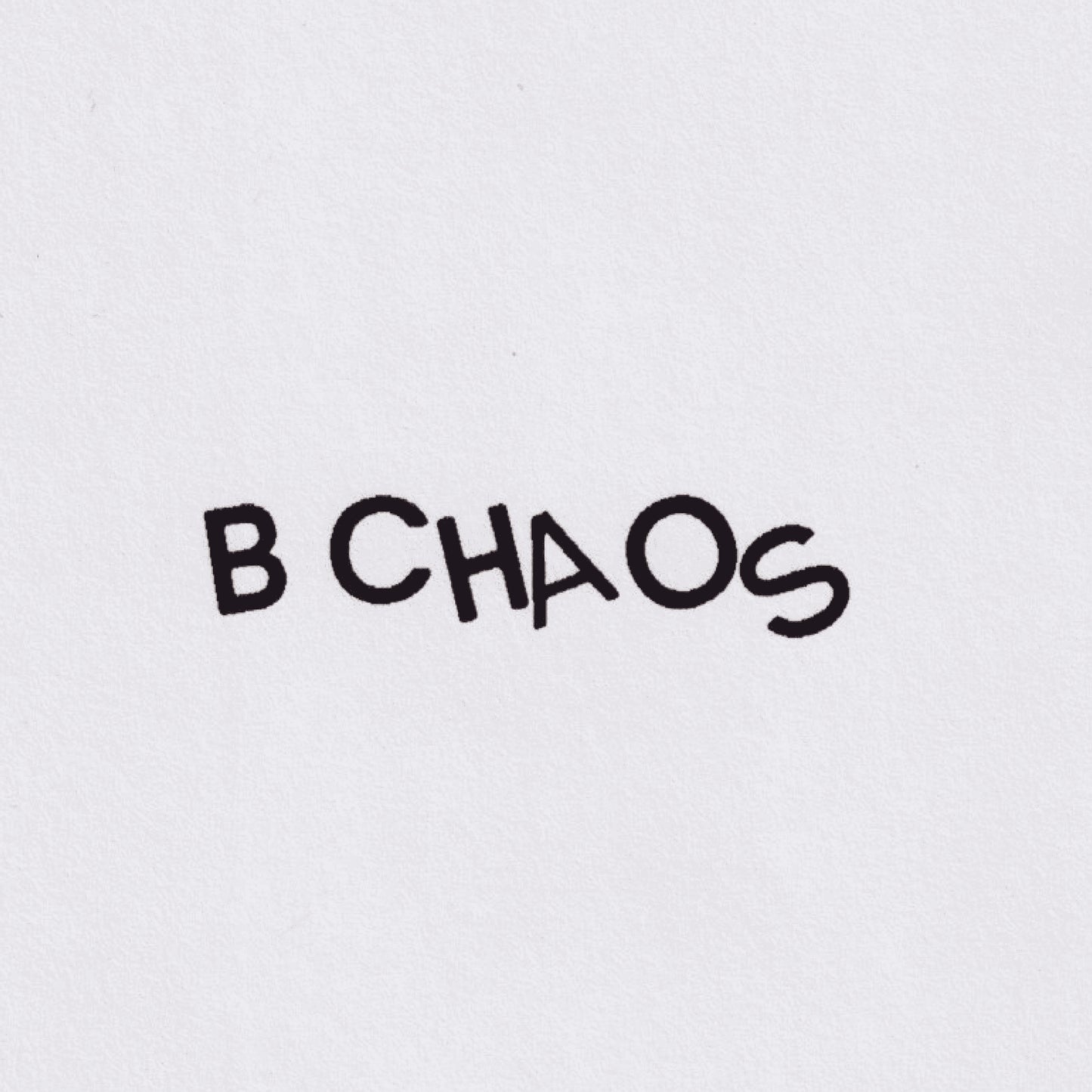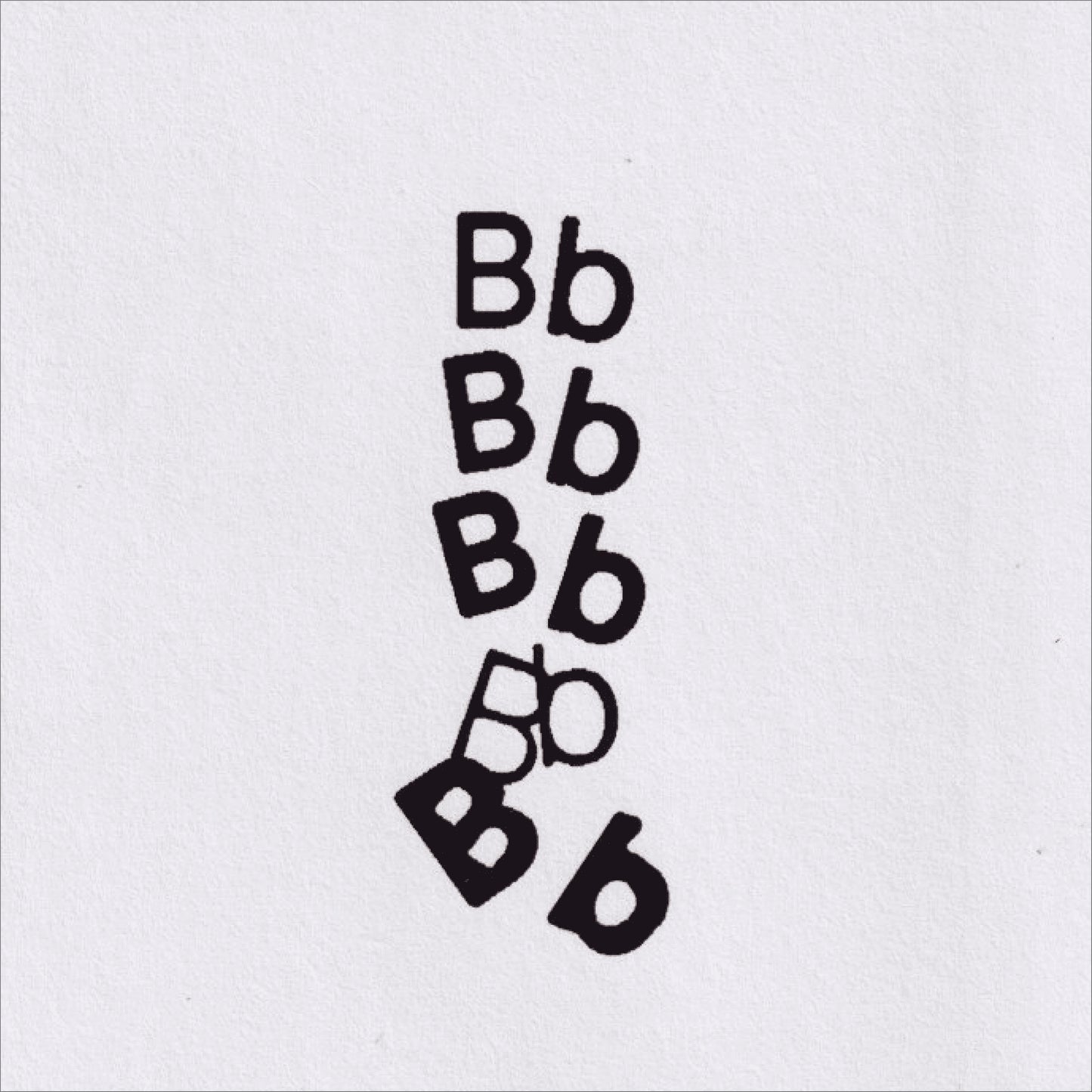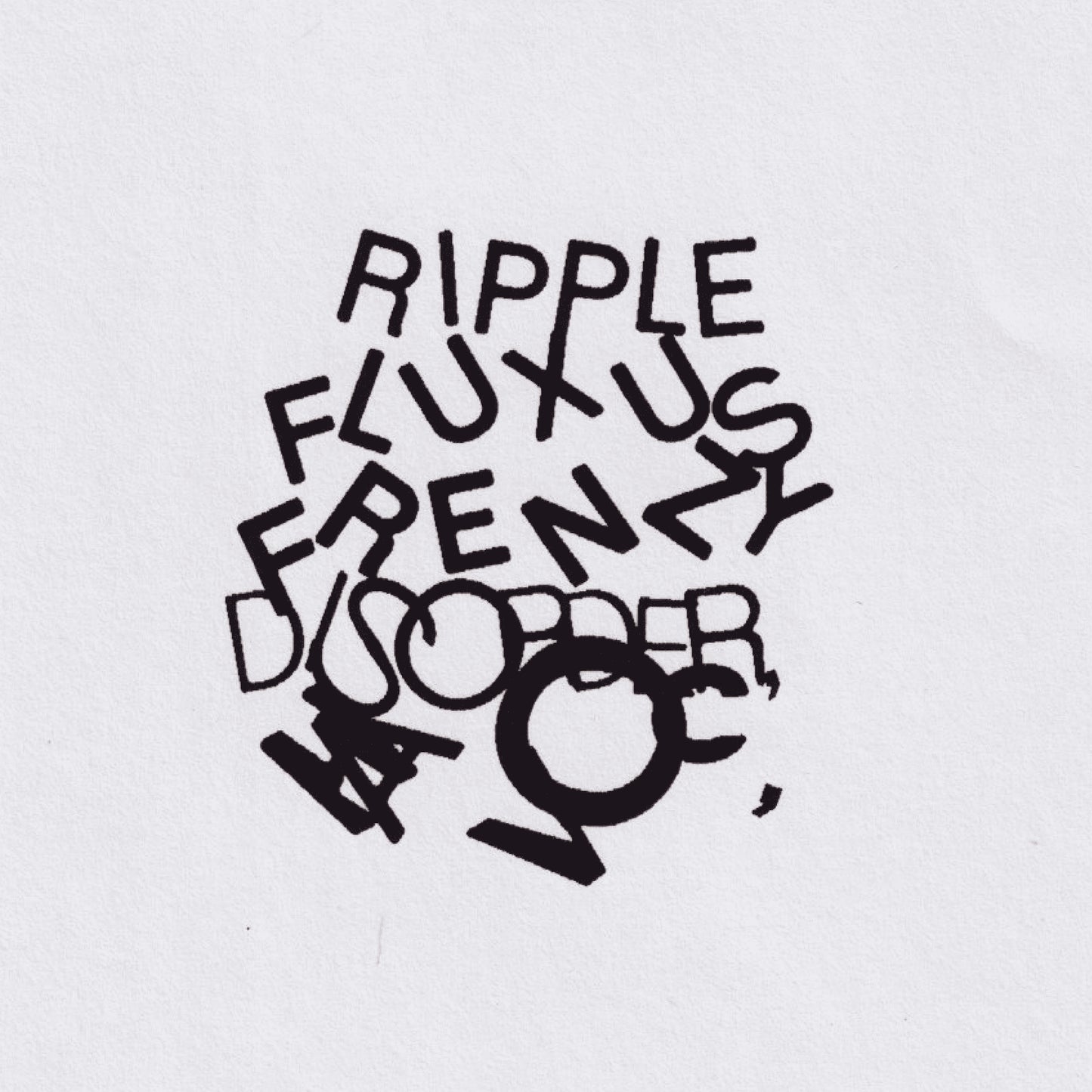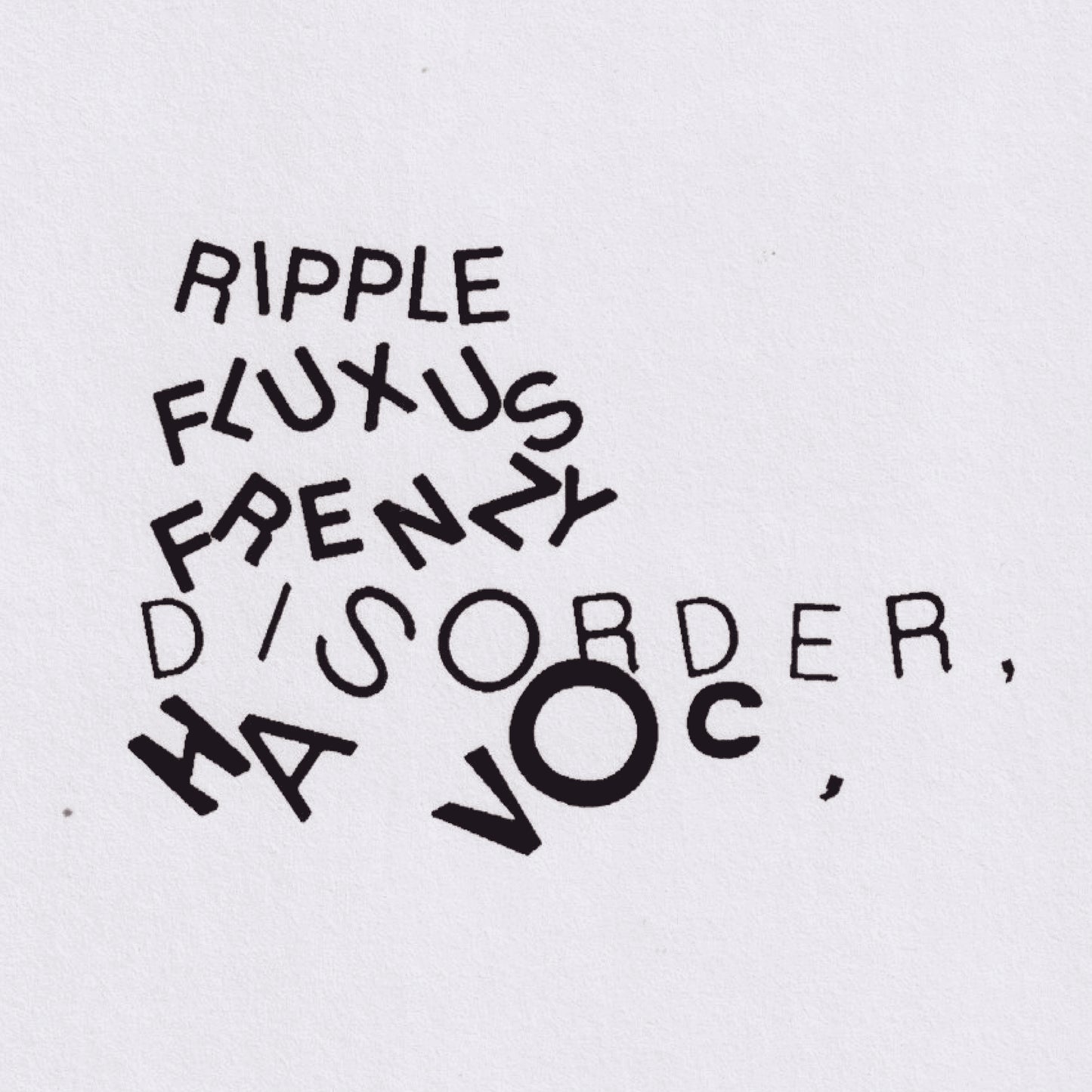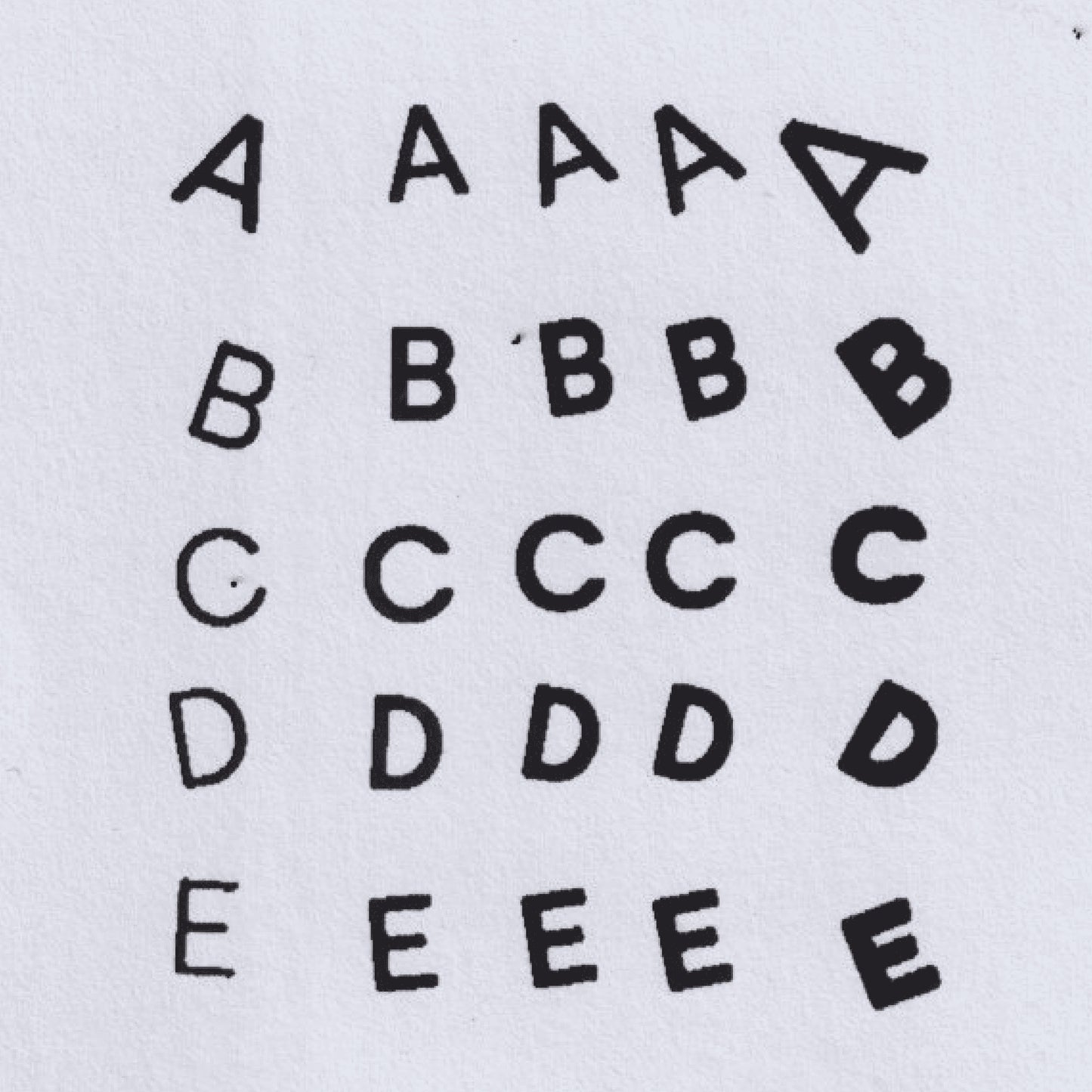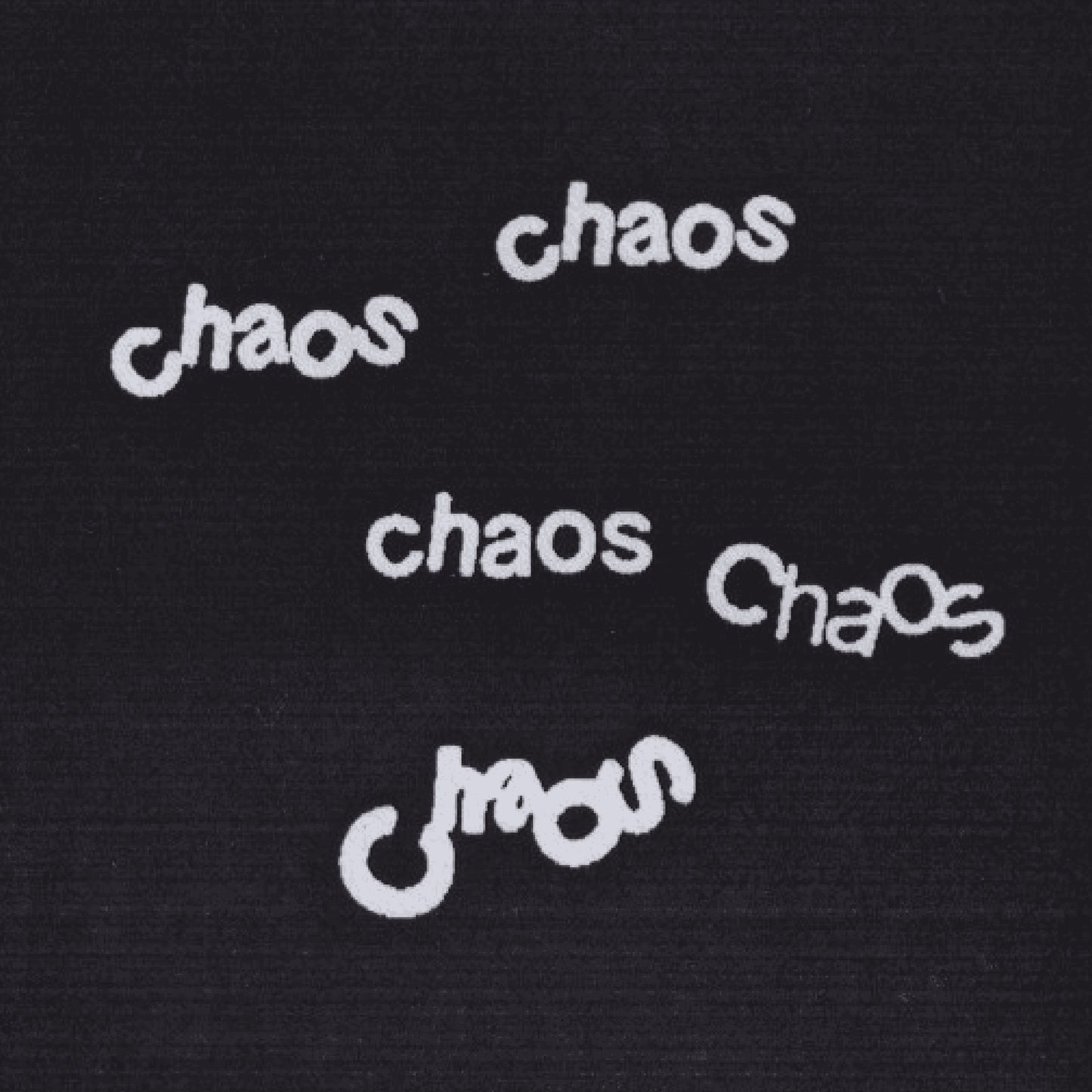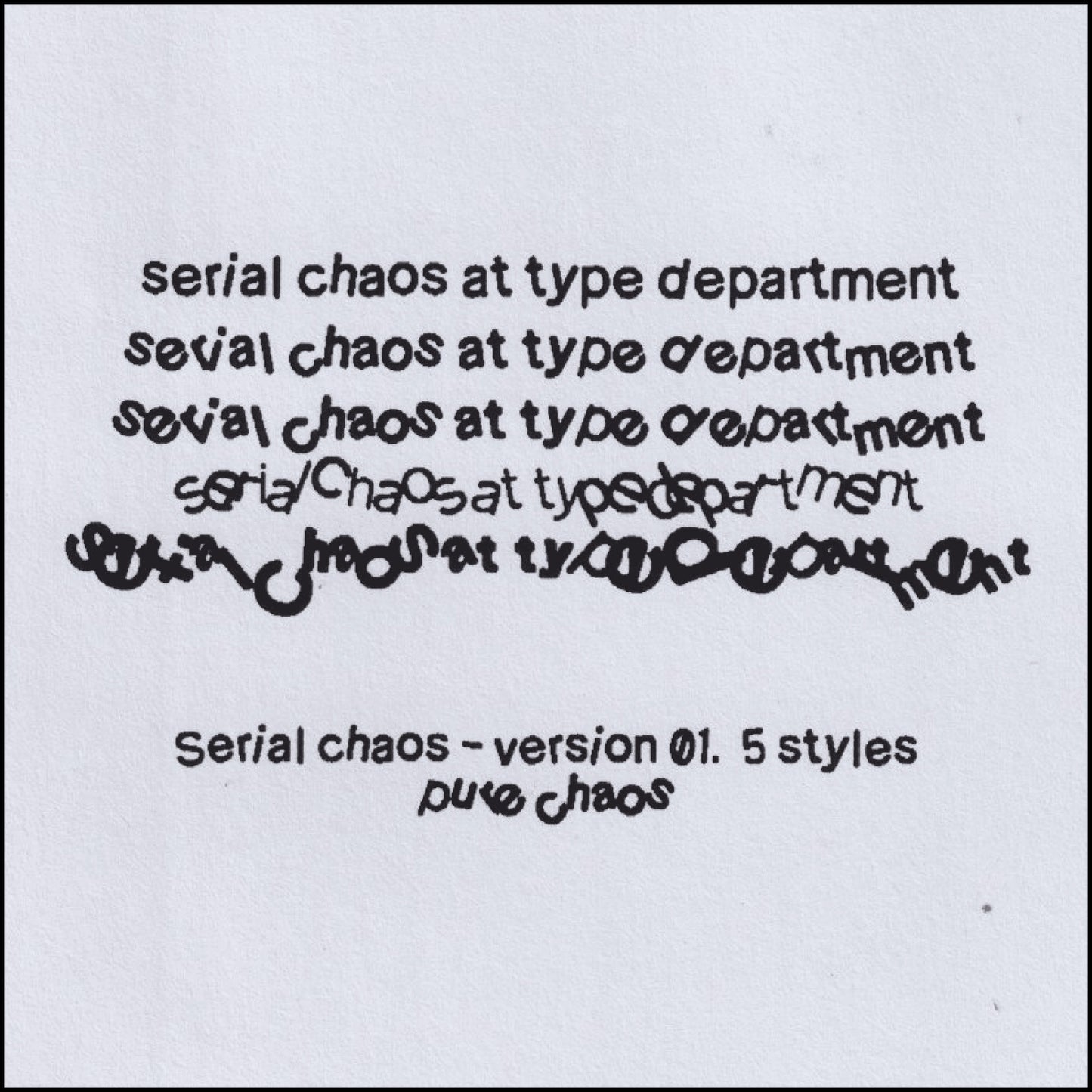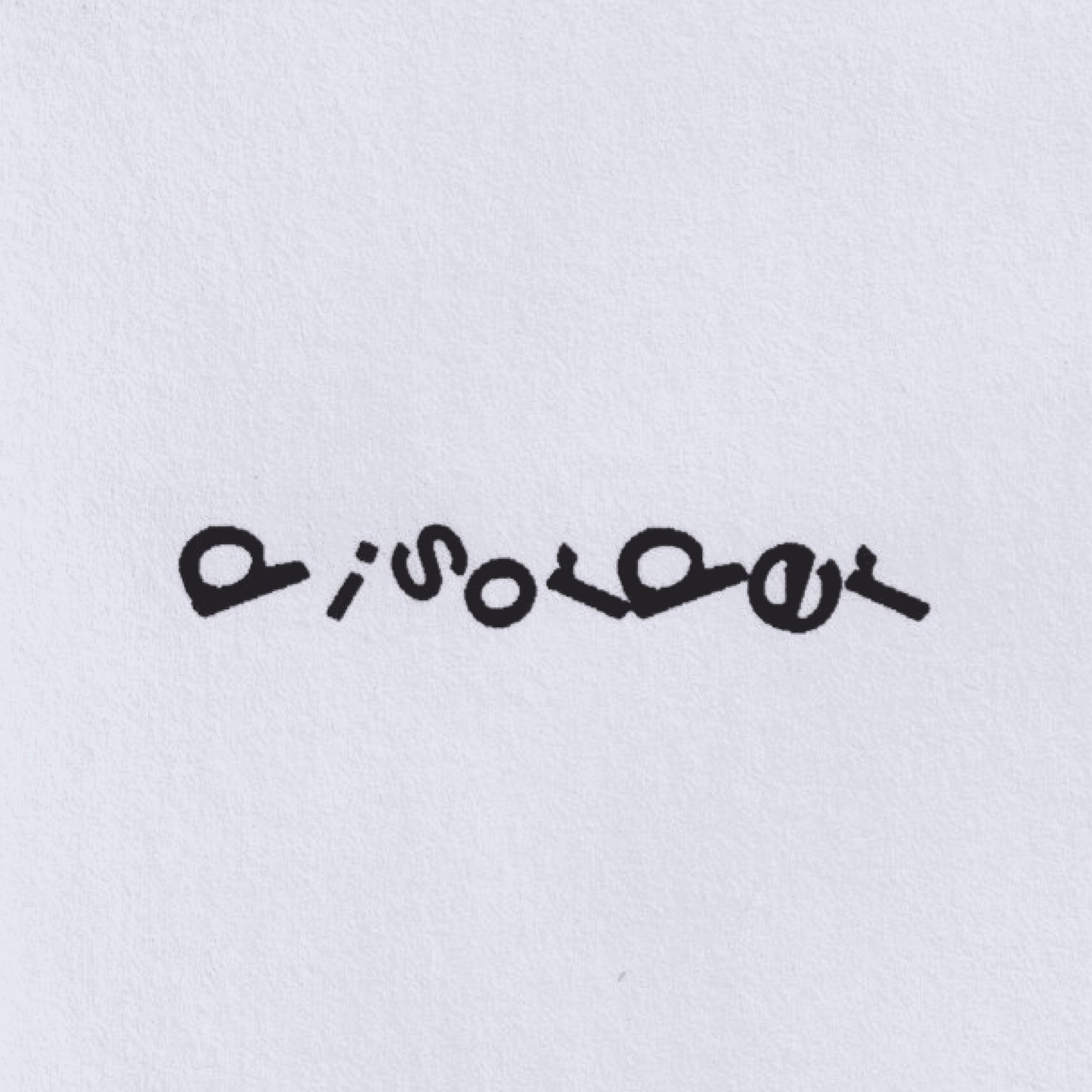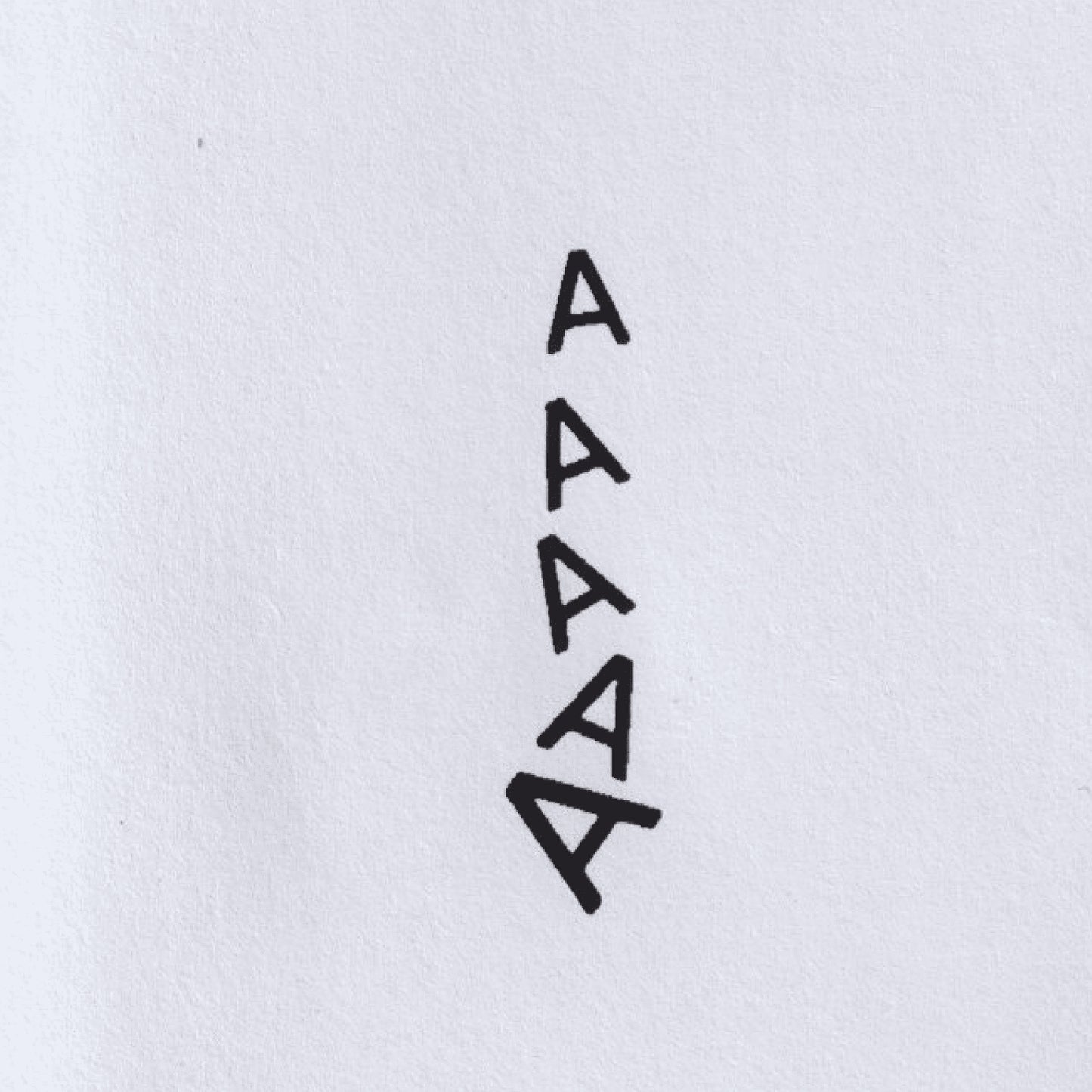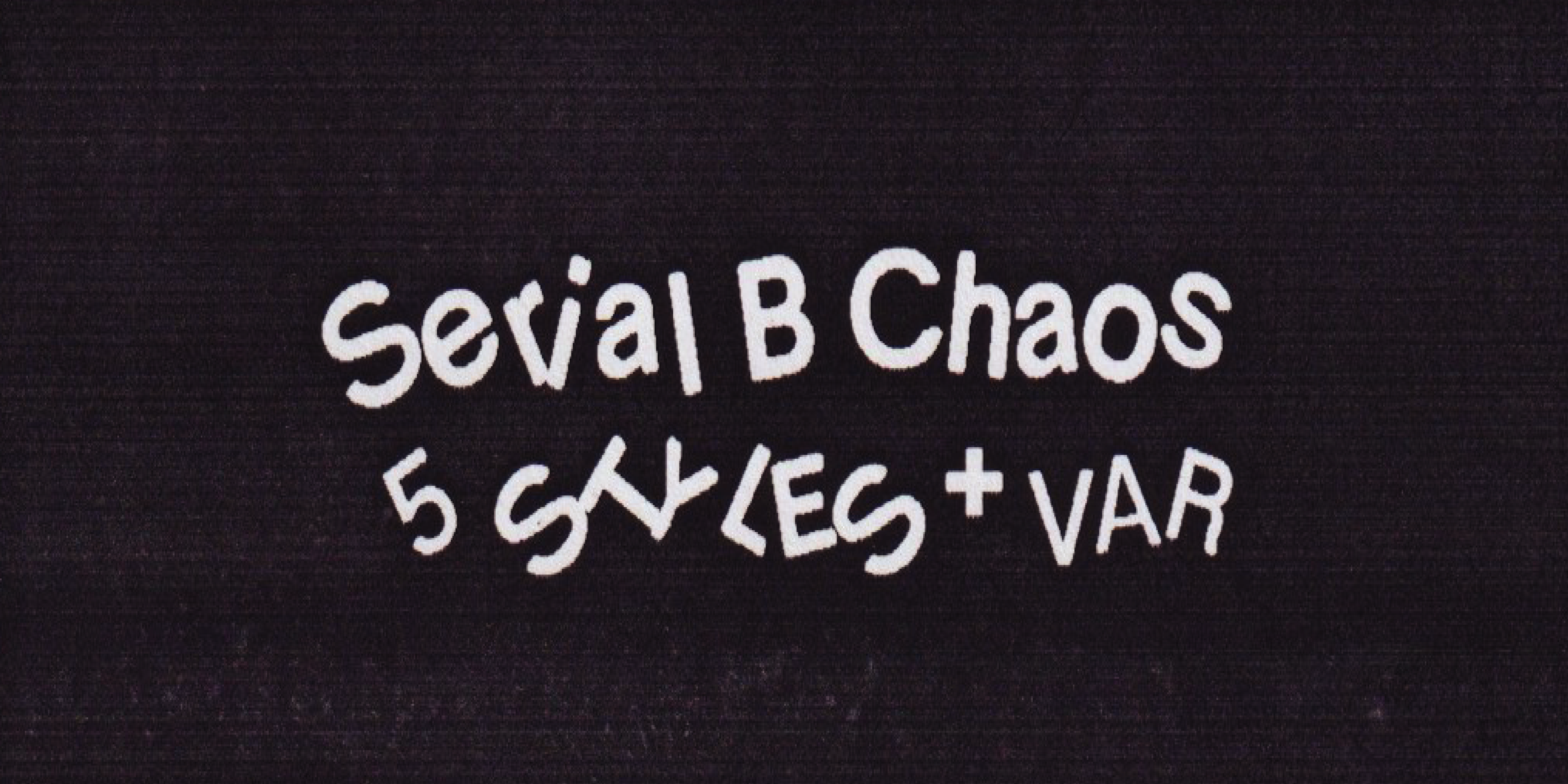
Serial B Chaos
Mario Julian Gutierrez
Serial B Chaos is a typeface inspired by David Carson's Smokebomb, but instead of using multiple typefaces, it achieves a similar effect through movement, with perspective as the main visual element. The typeface comes in three weights, each featuring controlled yet dynamic motion.
This typeface also embraces elements of randomness, as the outermost edges of the letters lack strict constraints, making their forms unpredictable and fluid.
— 5 STYLES
— LIGATURES
— ALTERNATES AND SUBSTITUTES